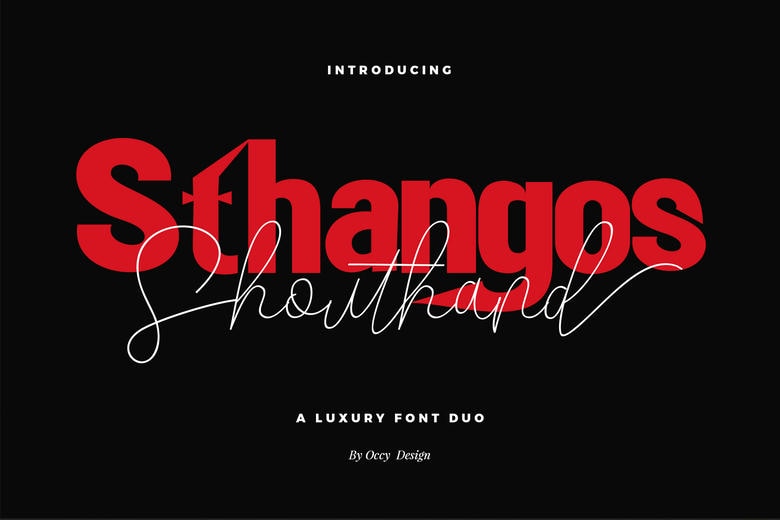
Sthangos Font Duo
The Sthangos Font Duo comprises modern and elegant styles and has a serif font and a signature-style script font. It keeps the air of femininity and looks very elegant which is complimented by a gorgeous script that fits well with various designs.